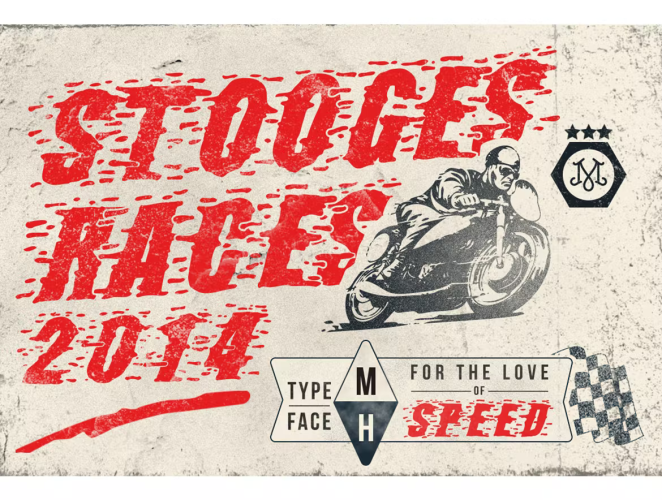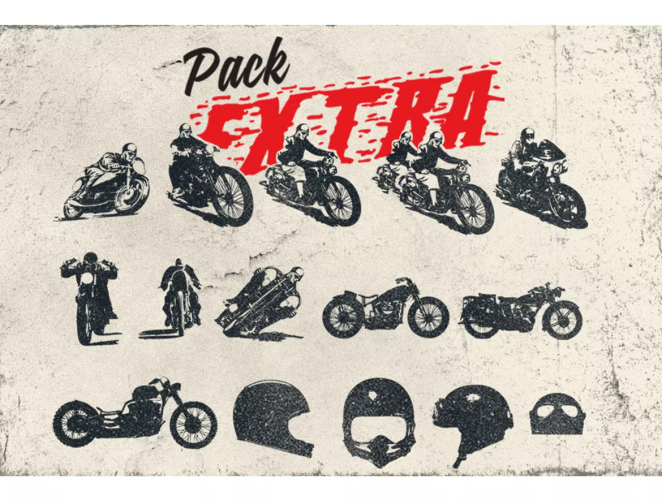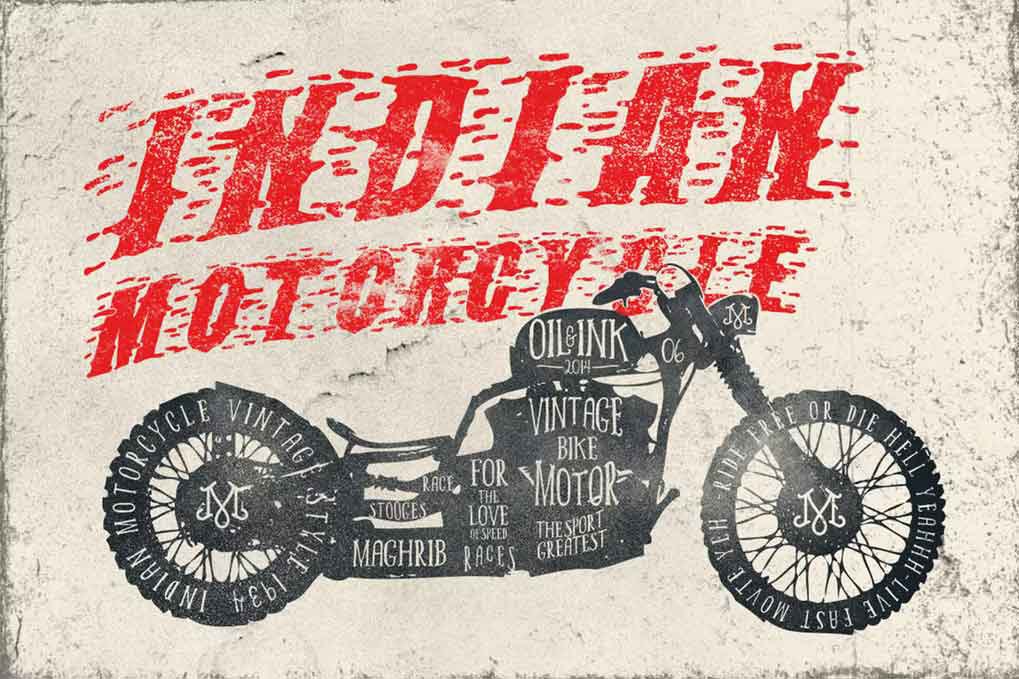
Stooges Races Font
Introducing the new stooges races with a hand drawn style. races stooges typeface inspired by poster of motorcycle era 1900. it can be used in logos, games and graphics…
Introducing the new stooges races with a hand drawn style. races stooges typeface inspired by poster of motorcycle era 1900. it can be used in logos, games and graphics related to cars, automotive, Detroit, 1940, 1950, 1960, vintage, retro, classic and old machines.
Where Stooges Races Font works best
Event & seasonal design
Stooges Races Font suits themed posters, holiday campaigns, festival identities and party invitations.
Game & entertainment titles
Decorative letterforms are a natural fit for game logos, movie-style titles and merch.
Packaging accents
Use Stooges Races Font sparingly for product names or flavour labels that need personality.